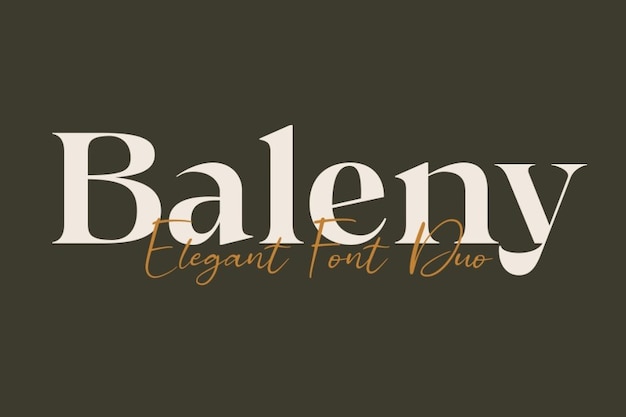
Baleny Font
It is the epitome of timeless elegance. This classic font exudes sophistication with its graceful, flowing lines and intricate details. Perfect for formal invitations, high-end branding, or any project where you want to convey a sense of luxury and refinement. "Baleny" is your go-to choice for adding a touch of fancy charm to your designs.